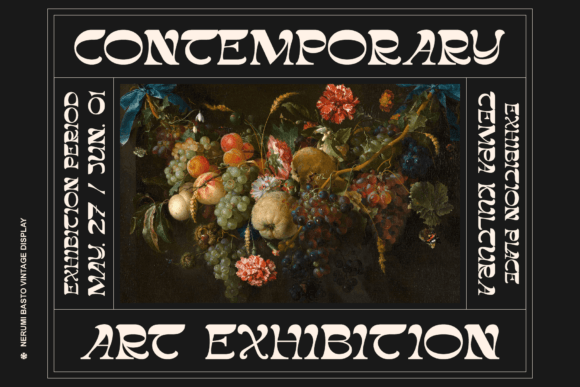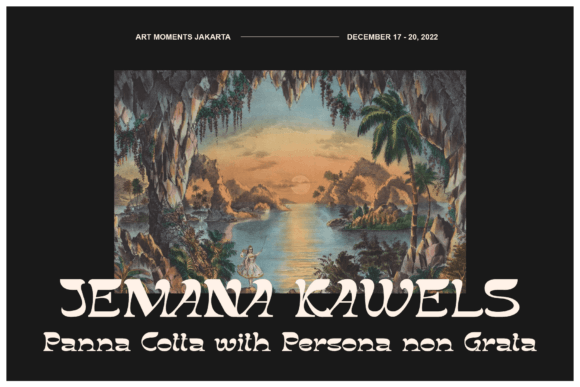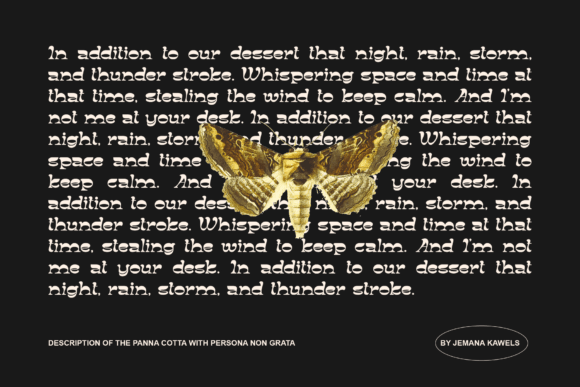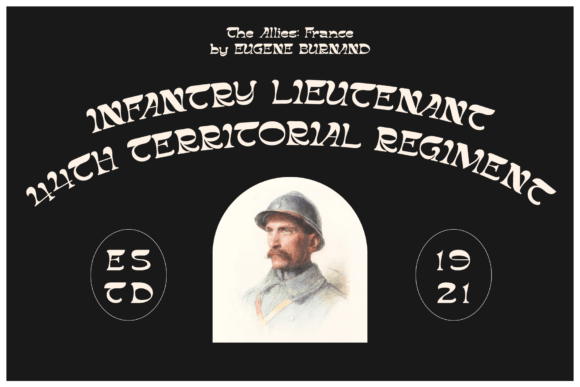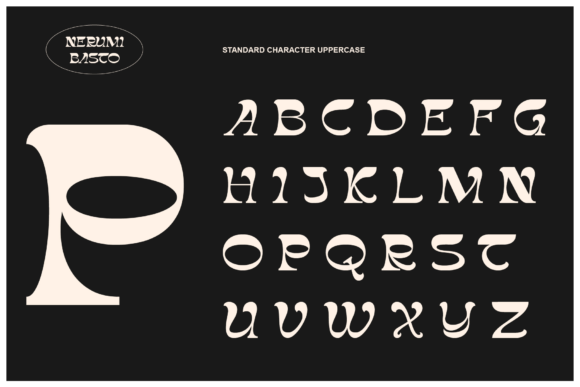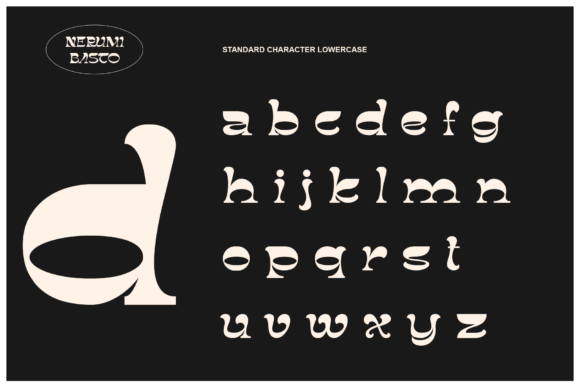
Introduction to Nerumi Basto Font
Imagine you’re brainstorming ideas for your next creative project, and you need the perfect font to bring it all together. The cursor blinks on your screen, and suddenly, a font appears that perfectly captures the essence of your vision. That’s exactly what happens when you add the Nerumi Basto Font to your design arsenal. This vintage display font is a game-changer for designers, offering a unique blend of flexibility and style that’s sure to capture everyone’s heart and attention.
With its high-quality design and transparent background, the Nerumi Basto Font is the perfect design resource for any creative project. Whether you’re working on a logo, poster, or social media graphic, this font is sure to elevate your design to the next level. And the best part? It’s available for free download, making it an invaluable resource for designers of all levels.
- Unique Design**: Nerumi Basto Font offers a distinctive and creative design that is perfect for unique projects, making it a valuable design resource.
- Perfect for Creative Projects**: Nerumi Basto Font is a great choice for designers who are working on creative projects, such as branding, advertising, or web design, as it adds a touch of elegance and sophistication to any design.
I recently had the opportunity to work with the Nerumi Basto Font, and I must say it’s a fantastic addition to any designer’s toolkit. As a design resource, it’s perfect for creative projects that require a unique and eye-catching font.
One of the standout features of the Nerumi Basto Font is its high quality design. The font is crisp and clear, making it perfect for use on transparent backgrounds. I was able to easily apply it to a project and achieve a beautiful, professional look.
- ✨ Unique and creative design that adds a touch of elegance to any project
- ✨ High quality and clear typography, perfect for use on transparent backgrounds
- ⚠️ Limited character set, which may not be suitable for projects that require a wide range of characters
Overall, I’m very impressed with the Nerumi Basto Font. It’s a great addition to any designer’s toolkit, and I highly recommend it for creative projects that require a unique and high-quality font.
Nerumi Basto Font
Tips for Getting the Most Out of the Nerumi Basto Font
To get the most out of the Nerumi Basto Font, consider the following tips:
- Use the font on a transparent background to create a sense of depth.
- Pair the font with a high-quality image to create a visually appealing design.